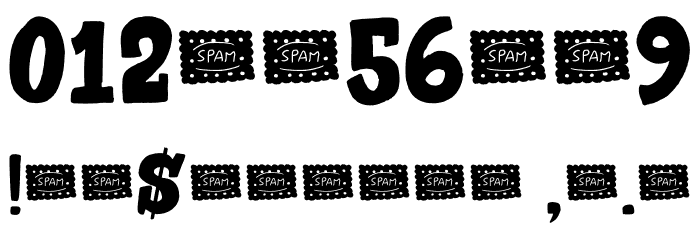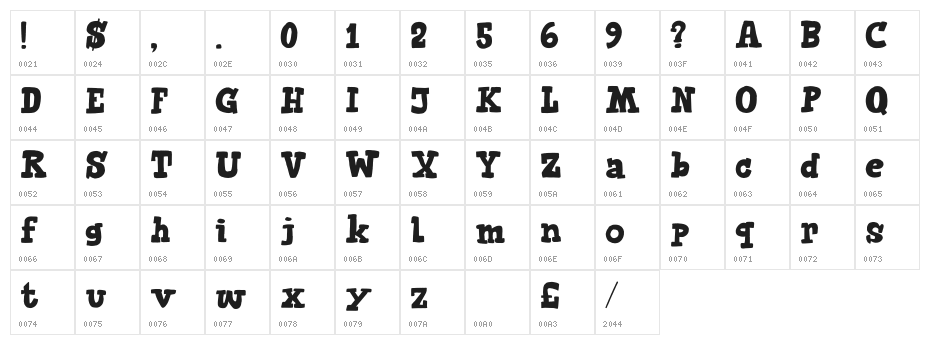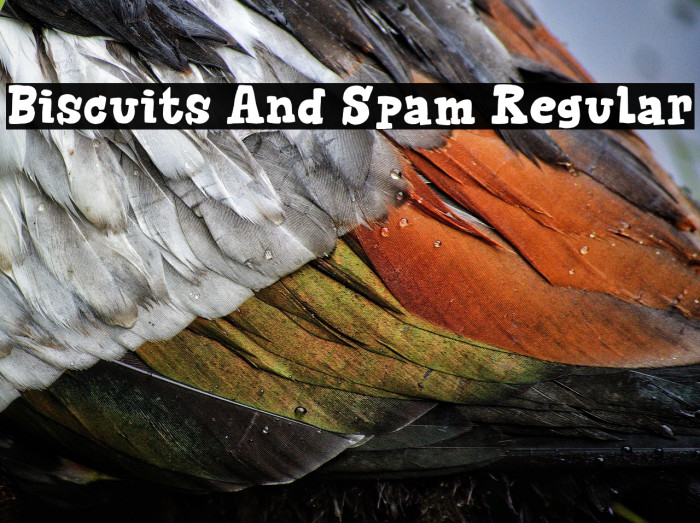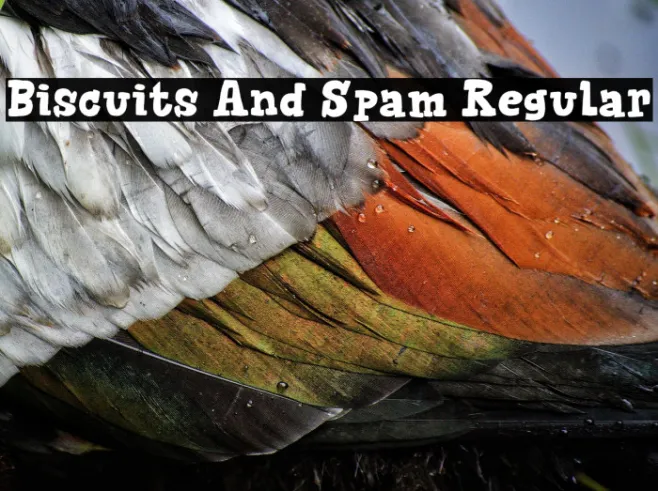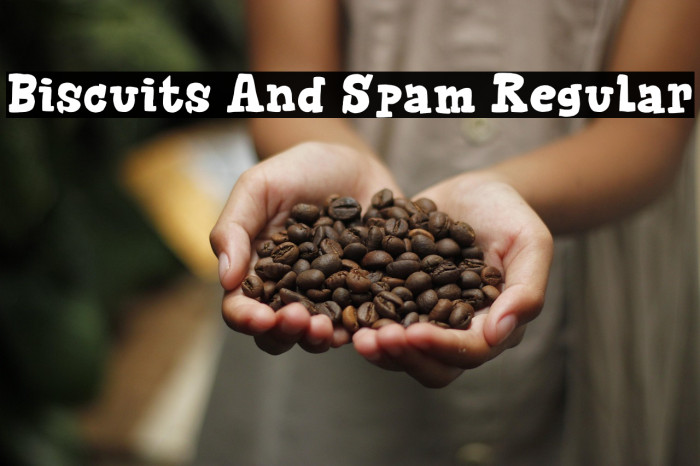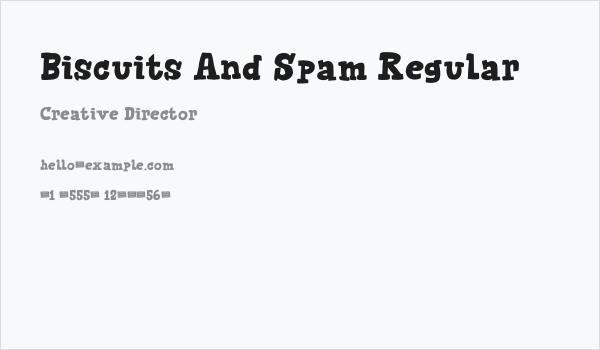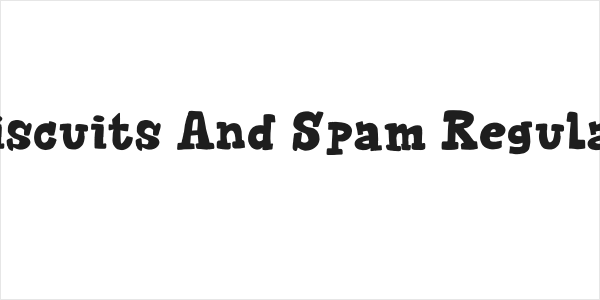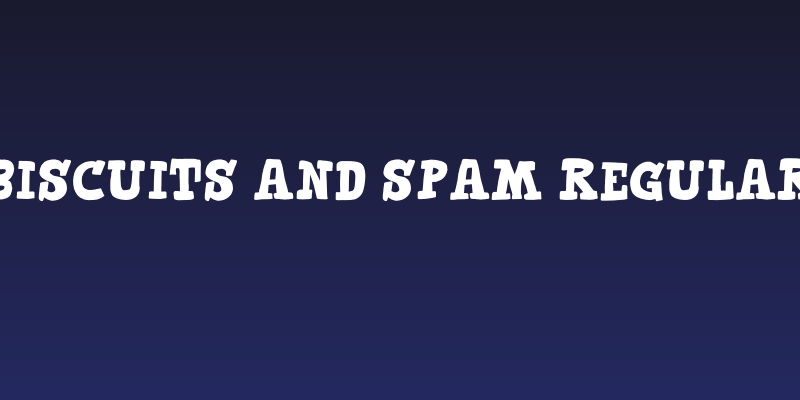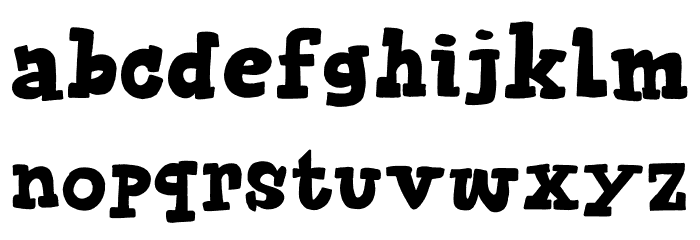
Biscuits And Spam Regular Font
Biscuits And Spam Regular Description
This playful and bold font features a whimsical, hand-drawn style with thick, uneven strokes that give it a lively and energetic appearance. The characters have a slightly irregular shape, adding to the font's charm and making it ideal for creative and informal designs. Its boldness ensures high visibility, making it suitable for attention-grabbing headlines or titles. The font includes a full set of uppercase and lowercase letters, numerals, and a variety of special characters, each maintaining the same quirky style. The unique 'SPAM' character adds a humorous touch, enhancing the font's playful nature.
| Proposed Projects | Ideal for children's books, playful branding, posters, and creative invitations. |